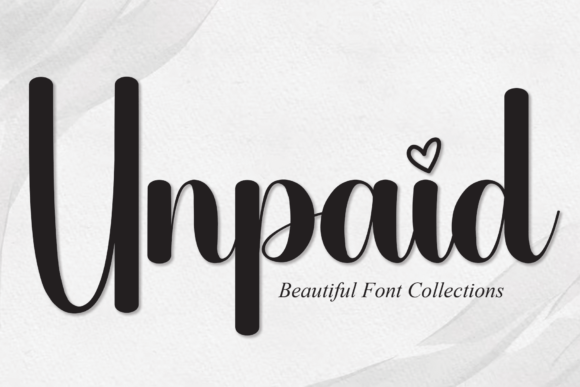
Introducing Unpaid Font - the perfect addition to your collection of script fonts. Created by the talented Roronoa Zoro S.P.D, Unpaid Font is one of the Best Fonts for Poster Design. This charming and elegant font family is versatile and can be used on a variety of design projects, from wedding invitations to logos and business cards.
Unpaid Font features a unique handwritten touch, adding a personal and intimate element to your designs. The strokes and curves of each letter are carefully crafted to create a stunning visual appeal that captures the eye of anyone who sees it. It's no wonder that Unpaid Font is quickly becoming a fan favorite among designers and creatives.
This font is perfect for those looking to add an emotional and creative element to their designs. Unpaid Font evokes feelings of warmth, authenticity, and personal touch that are hard to come by with other fonts. It's perfect for those who want to stand out and make a lasting impression.
In addition, Unpaid Font is incredibly easy to use. Its simple yet elegant design makes it easy to read and understand, even from a distance. With its versatility, you can use Unpaid Font for a variety of design projects, from thank you cards to quotes, greeting cards, and more.
Overall, Unpaid Font is a must-have for any designer or creative looking to elevate their design projects. Its unique and captivating style, combined with its ease of use, makes it the perfect addition to any font collection.